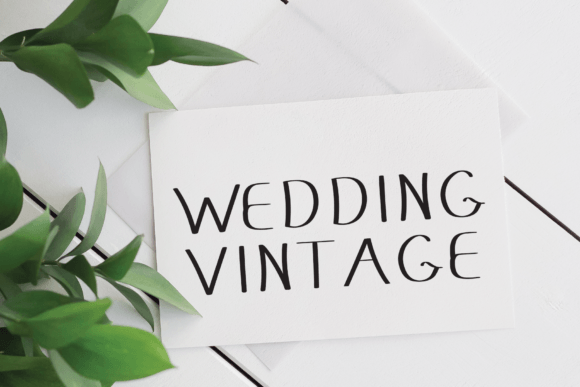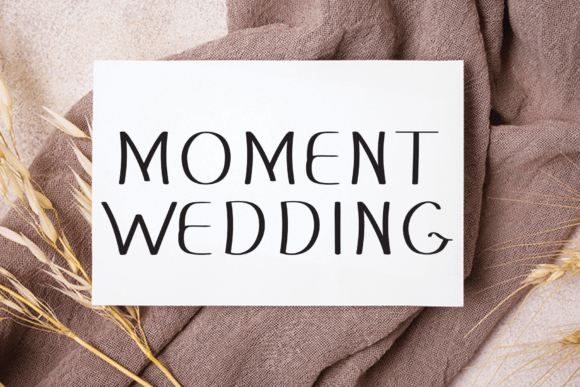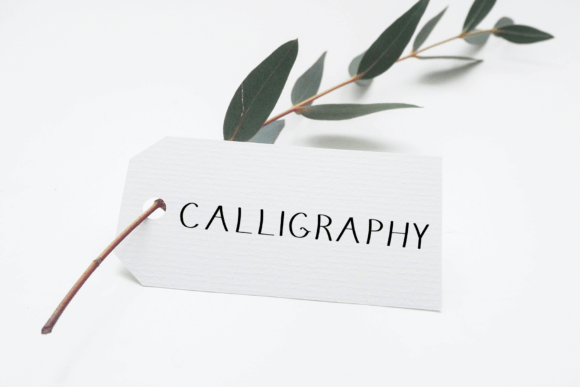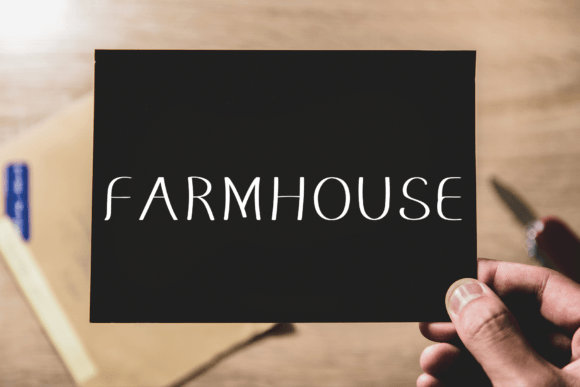
Cucumber Font: The Fun and Friendly Handwritten Font for All Occasions
Are you tired of using the same old fonts for your designs and crafts? Look no further than Cucumber Font, a fun and friendly handwritten font that’s perfect for a variety of projects. Whether you’re a designer, crafter, or simply someone who loves to create, Cucumber Font is sure to become your new favorite.
What is Cucumber Font?
Cucumber Font is a handwritten font that’s designed to bring a touch of personality and whimsy to your designs. With its playful and approachable feel, it’s perfect for projects that require a friendly and approachable tone. The font is versatile and can be used for a wide range of applications, from digital designs and presentations to crafts and greeting cards.
Features of Cucumber Font
So, what makes Cucumber Font so special? Here are just a few of its key features:
- Handwritten feel: Cucumber Font has a warm and personal feel that’s perfect for creating handmade-style designs and crafts.
- Playful and friendly: The font has a lighthearted and approachable tone that’s sure to bring a smile to your face.
- Versatile: Cucumber Font can be used for a wide range of projects, from digital designs and presentations to crafts and greeting cards.
- Easy to read: Despite its playful feel, Cucumber Font is easy to read and understand, making it perfect for designs that require a clear message.
Uses for Cucumber Font
So, what can you use Cucumber Font for? The possibilities are endless! Here are a few ideas to get you started:
- Crafts: Cucumber Font is perfect for handmade crafts, such as scrapbooking, card making, and DIY projects.
- Digital design: The font can be used for digital designs, such as social media graphics, blog posts, and website headers.
- Presentations: Cucumber Font is a great choice for presentations, as it adds a touch of personality and whimsy to your slides.
- Greeting cards: The font is perfect for creating handmade-style greeting cards for special occasions.
Why Choose Cucumber Font?
So, why should you choose Cucumber Font for your next project? Here are just a few reasons:
- Unique and eye-catching: Cucumber Font is a unique and eye-catching font that’s sure to stand out from the crowd.
- Versatile: Cucumber Font can be used for a wide range of projects, making it a great addition to your font library.
- Fun and friendly: The font has a fun and friendly feel that’s sure to bring a touch of personality to your designs.
Tips for Using Cucumber Font
Here are a few tips for getting the most out of Cucumber Font:
- Use it for headings and titles: Cucumber Font is perfect for headings and titles, as it adds a touch of personality and whimsy to your designs.
- Pair it with other fonts: The font can be paired with other fonts to create a unique and eye-catching combination.
- Experiment with colors and textures: Cucumber Font looks great in a variety of colors and textures, so don’t be afraid to experiment and find the perfect combination for your design.
In conclusion, Cucumber Font is a fun and friendly handwritten font that’s perfect for a variety of projects. With its playful and approachable feel, it’s sure to become your new favorite font. Whether you’re a designer, crafter, or simply someone who loves to create, Cucumber Font is a great choice for adding a touch of personality and whimsy to your designs.